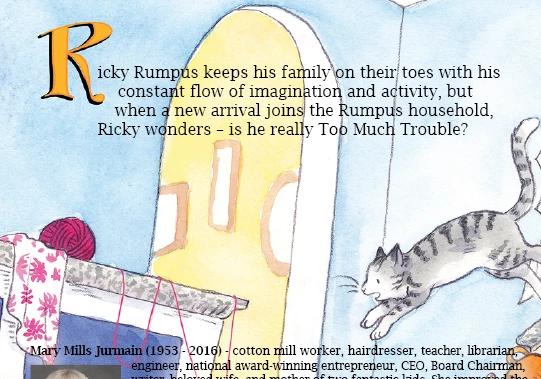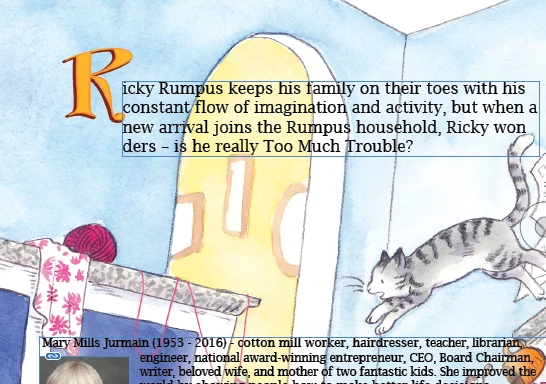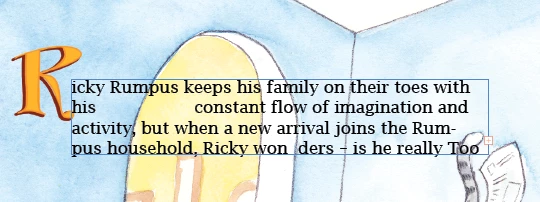
Font looking different across two supposedly identical documents
Hi all, I'm not a super frequent ID user--I designed an indie book several years ago, and learned just enough to be dangerous, but my author is asking for a paperback version, and trying to tweak the files is giving me an enormous headache.
Original document: created summer 2021, Lucida Bright font.
Now the weird part. I shift+selected both text boxes and the author photo, and I've set the clipboard handling to paste all formatting, etc, but it's coming out like this:
As you can see, the text looks.... beefier, and the sculpting around the capital R is totally gone. The hanging indent around Mary's picture remains. When I try to type in either of these boxes, the text momentarily goes back to its more delicate appearance, but reverts quickly to this pixely, semibold mess. It also seems to be a different size, even though both documents say the font is the same size, and any alterations to the font create absolute formatting hell (below, going from 16 to 17pt).
I am hoping desperately that this is just my lack of experience, I've found a few topics that seem tangentially related, but involved digging into the actual code, which is completely beyond me. Did Lucida Bright get an update in the last few years? Does this have to do with the differences in default paragraph styles between the 2021 and current versions? What is the simplest way to make this look less rancid?
The appearance of the text is probably just a result of different rendering. What is the source of the first image?
As for getting the text to wrap around the letters, it looks like this was done by manually inserting spaes. THis is a bad idea. I would use the pen tool to draw polygons over the letters (which appear to be part of the image) and apply text wrap to them. Add a stroke to make them visible to the user but make them non-printing, either through the Attributes panel or by isolating them to a non-printing layer.
Good eye. You could also edit the text envelope, something I'd normally avoid but for fussy, picture-based work like this it might be simpler.
This looks like the paragraph styles need to be updated and adjusted. There are many small reasons layout (especially small, tight layout like this) might not be identical across InDesign versions, and you don't say if this is the same system with the same font files, which can also change things.
I'd just go through and touch up the styles to get a close if not exact match to your original layout; there's probably no magic fix that would simply restore these fine details and thus avoid that step anyway.
I'm also not clear wny you're cutting and pasting the content into a new document, if that's what you're doing. Simply create a duplicate of your original file and adjust whatever's needed  — anything other than page size, if that? An interior layout should be the same for both a hardcover and paperback of the same trim size. Don't make the job harder than it has to be by trying to rebuild the book from scratch.